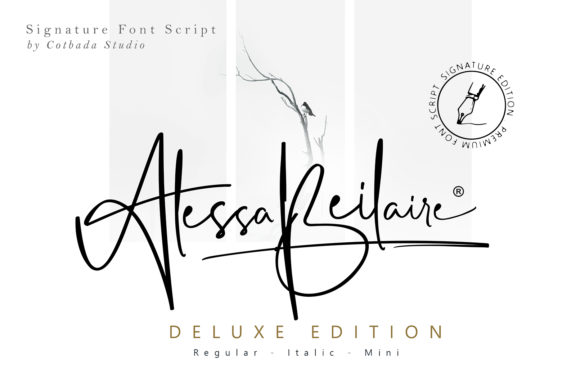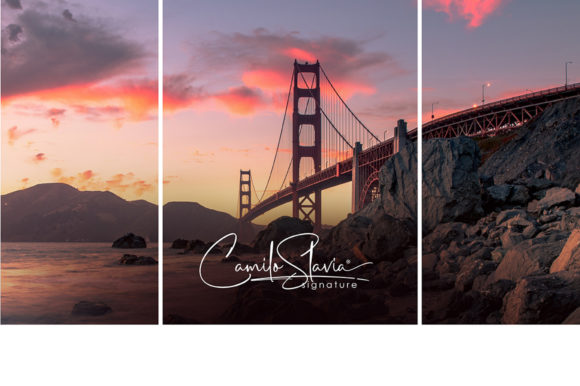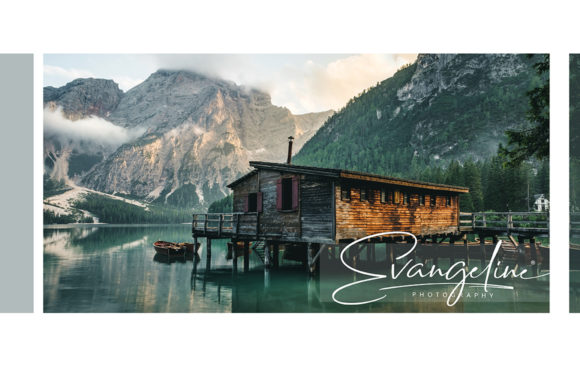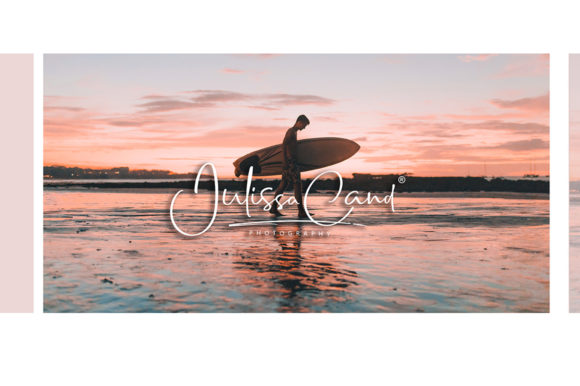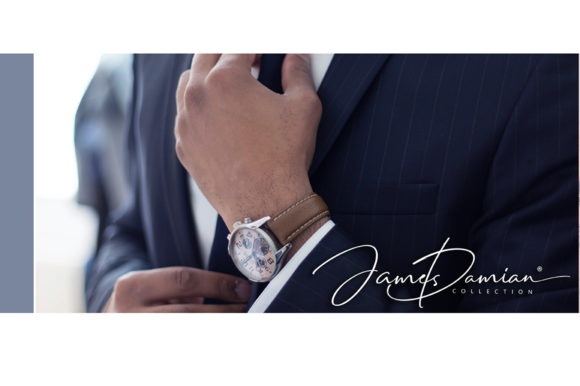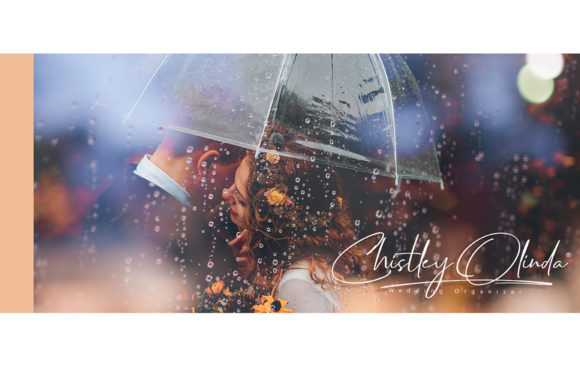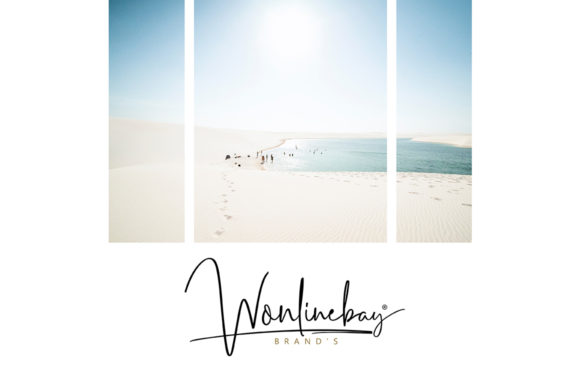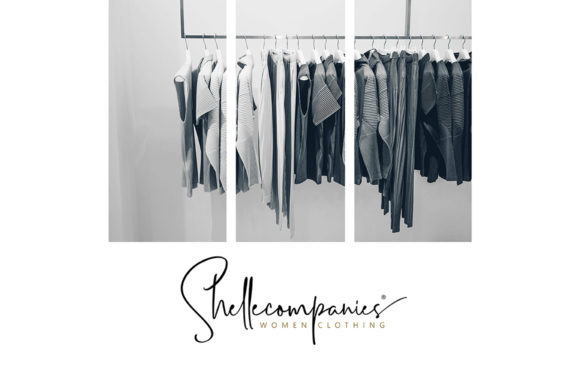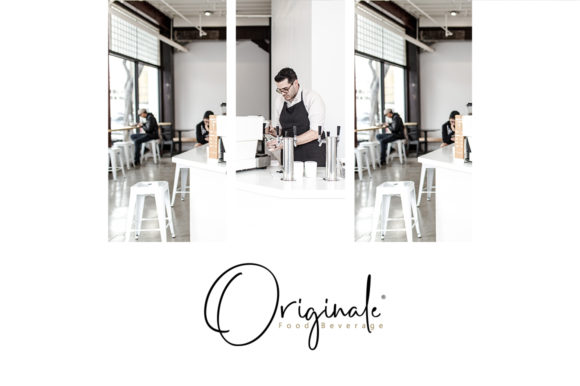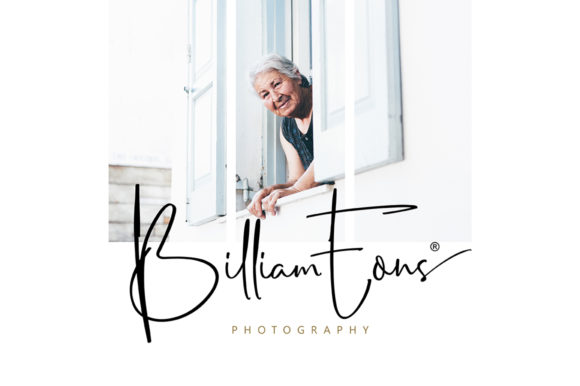
Alessa Beilaire Font
About Alessa Beilaire Font
The Alessa Beilaire is a simple and classy script font. It comes in three elegant styles with a great readability.
It’s a great choice for watermark on photography, signature or signature logo designs, quotes, album covers, business cards, and much more!